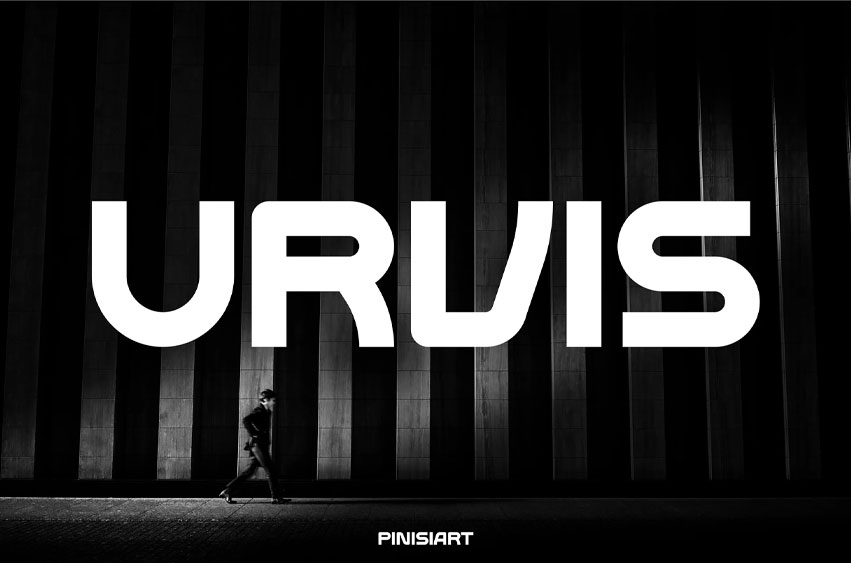
Urvis Font
Urvis Font is a geometric urban typeface that blends bold proportion, sharp edges, and smooth flow to create a striking visual identity. With its modern industrial vibe, it captures the pulse of city life—perfect for designers who want their work to feel confident, stylish, and impactful. Its rounded terminals with clean balance make it versatile across branding, fashion campaigns, editorial spreads, and digital platforms.
Designed for branding, posters, streetwear labels, app UI, and editorial layouts, URVIS stands out in markets where visibility and identity matter most. Whether you’re designing a music flyer, digital ad, fashion lookbook, or urban signage, URVIS provides the clarity and boldness that instantly commands attention while keeping a refined, professional structure. It speaks to creators who want to deliver messages that feel both modern and timeless.
• Urban Boldness – Built with strong proportion and sharp geometry for maximum visual impact.
• Versatile Usability – Works equally well in digital, print, and large-scale branding.
• Balanced Readability – Clean letterforms with rounded details ensure clarity in any medium.
• Design Flexibility – Adaptable for posters, packaging, headlines, and modern identity systems.